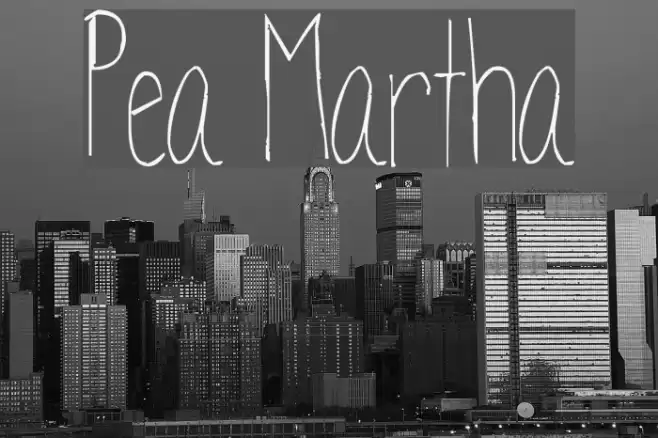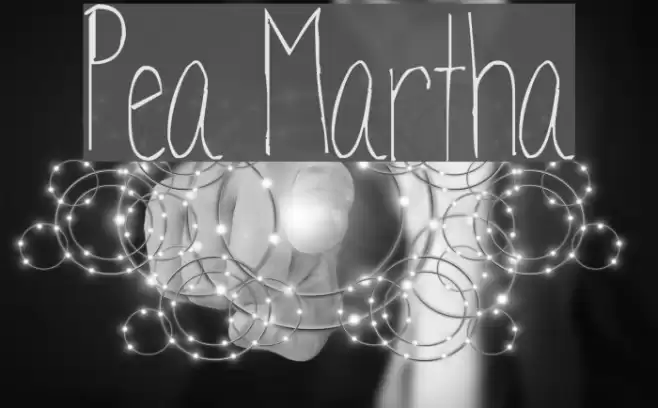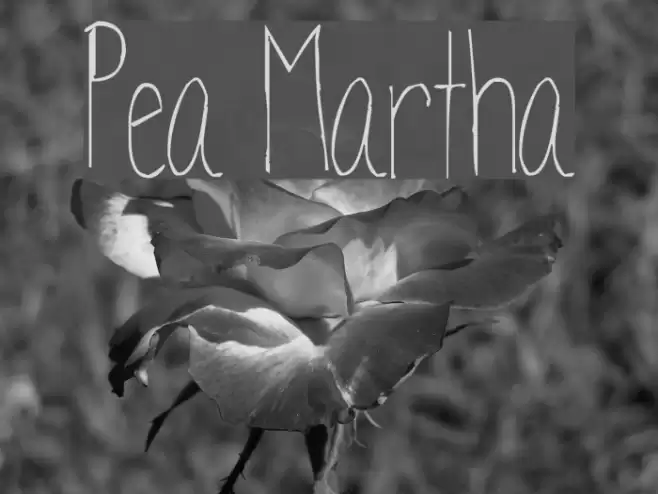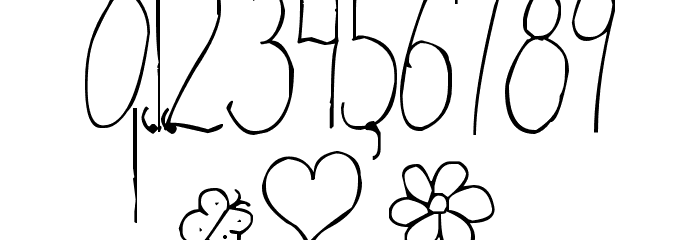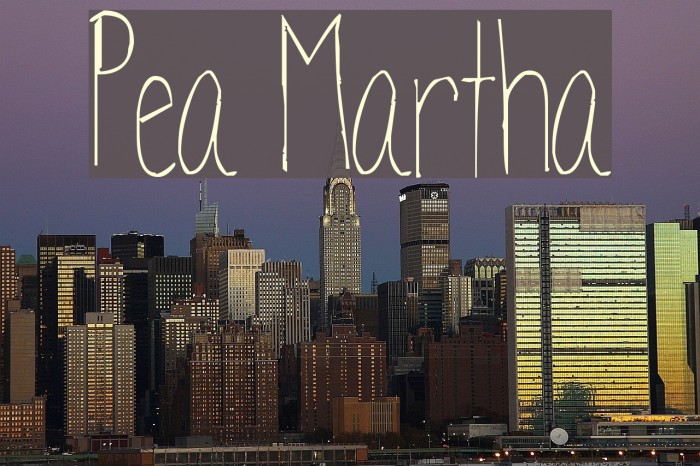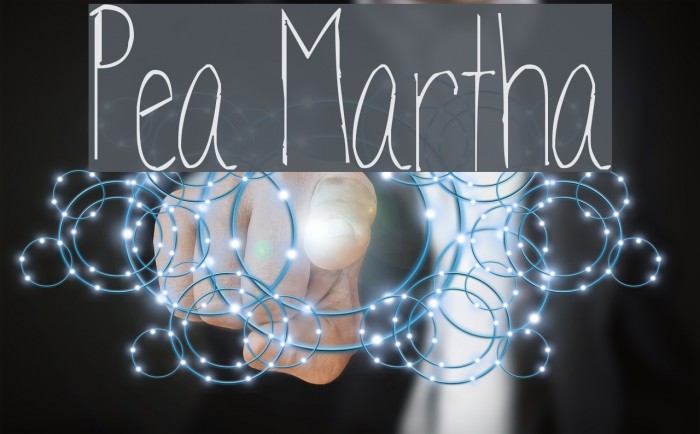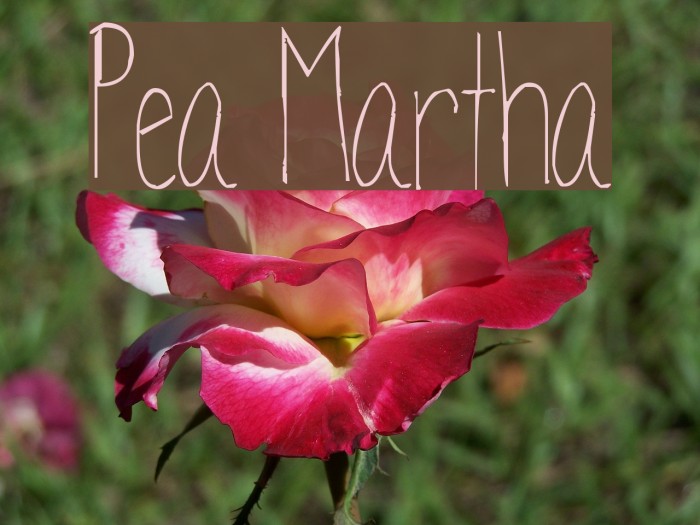
Pea Martha Font
Pea Martha Description
This font features a playful, handwritten style with tall, narrow characters. The strokes are thin and slightly irregular, giving it a casual and whimsical feel. The uppercase and lowercase letters maintain a consistent height, while the numbers and special characters complement the overall design. The font includes charming decorative elements like a ladybug, heart, and flower, adding to its playful nature. This font is ideal for projects that require a personal touch, such as greeting cards, children's books, or creative invitations.
A playful, handwritten font with tall, narrow characters and whimsical decorative elements from Uncategorized fonts.
- Proposed Projects: Ideal for greeting cards, children's books, creative invitations, and playful branding.
- Weight: Light
- Overall Style: Playful
- Use Case: Decorative, Invitations, Children's content